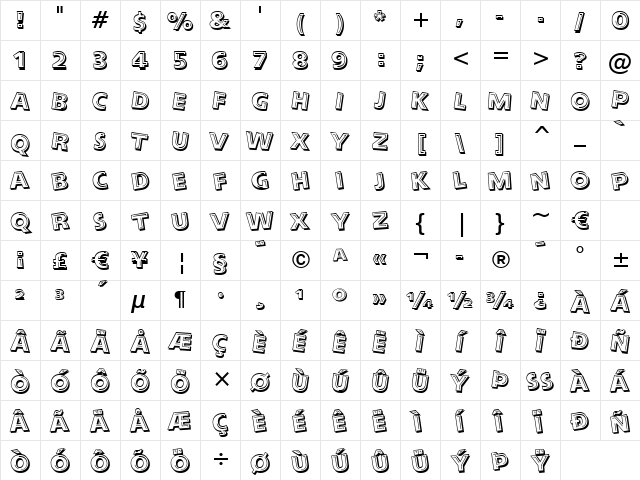
AlphabetSoup Tilt BT Tilt
Style: Tilt
Design Context for AlphabetSoup Tilt BT
AlphabetSoup Tilt BT is a composed and adaptable typeface that performs quietly and consistently across a wide range of design contexts.
Pro Tip: Use AlphabetSoup Tilt BT in both headline and body roles to test its range before committing to a single application.